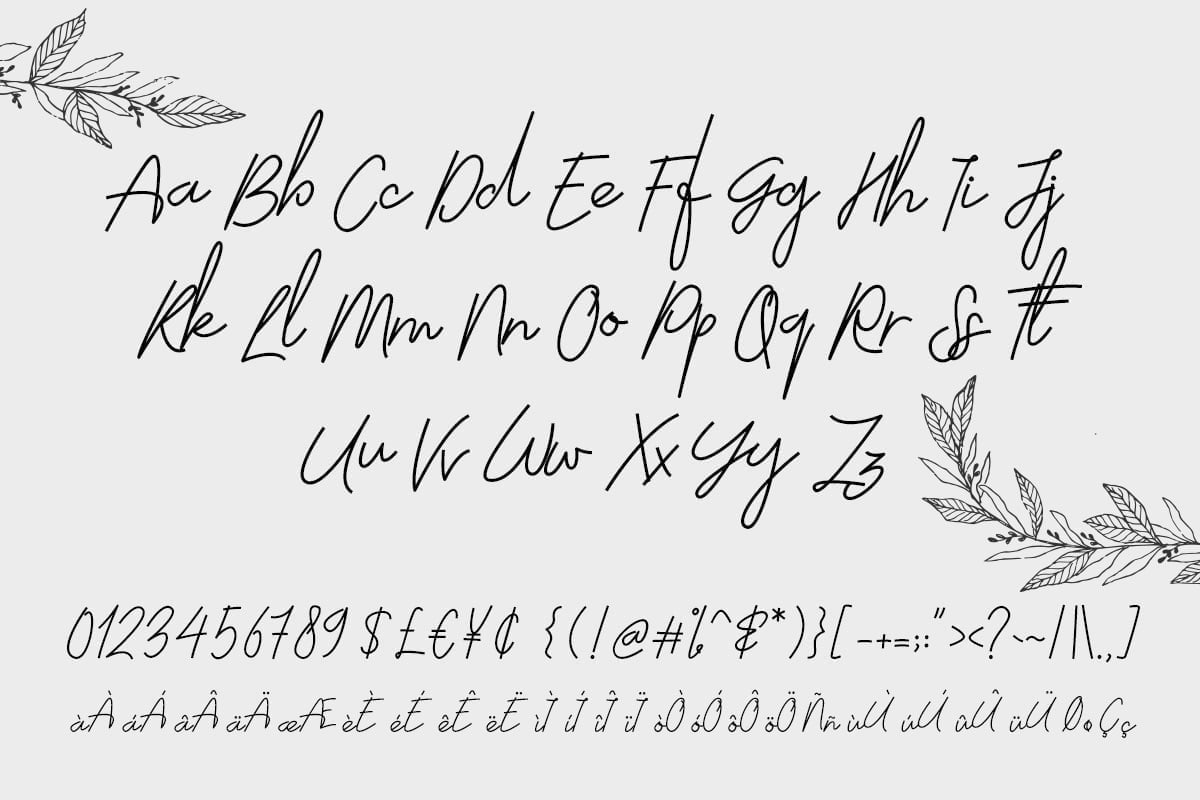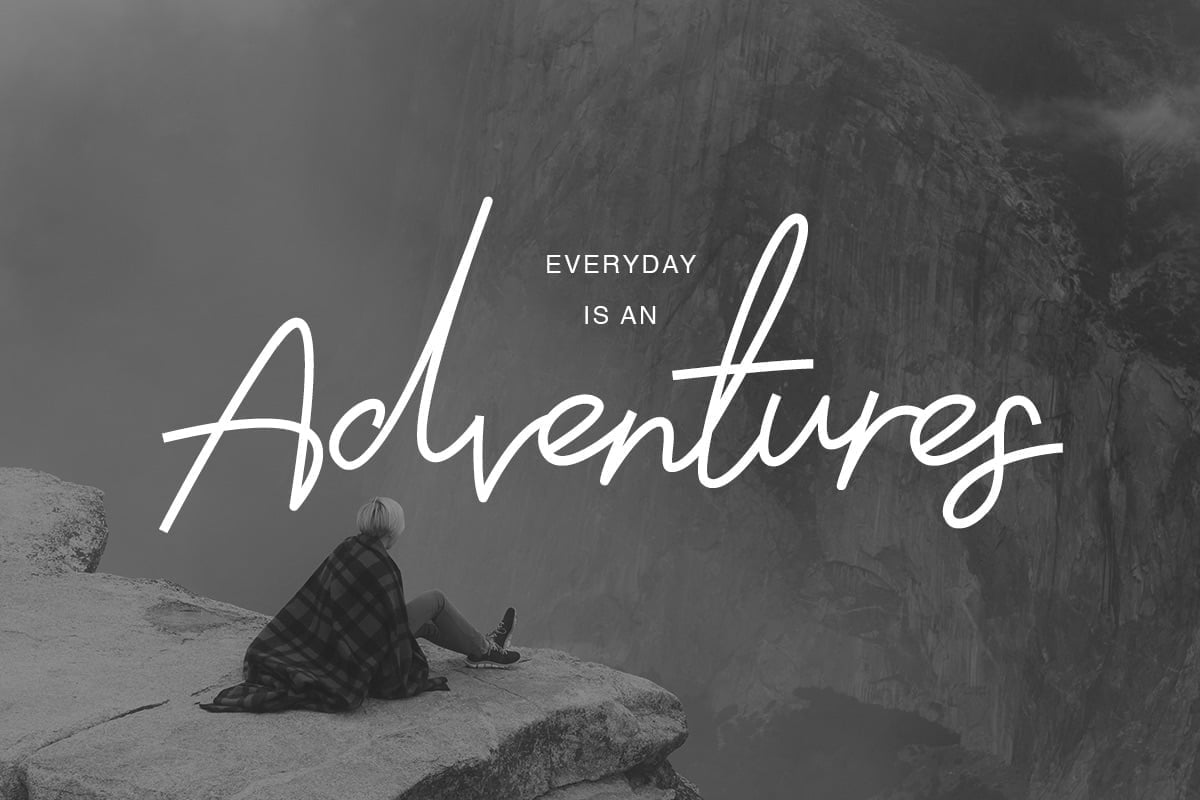
If a classy handwritten font is what you’ve been looking for, then Moscato is the calligraphy font for you! With handwritten brush strokes and a personal touch, this font is perfect for many different project ex: quotes, blog header, poster, wedding, branding, logo, fashion, apparel, letter, invitation, stationery.
Moscato Handwriting